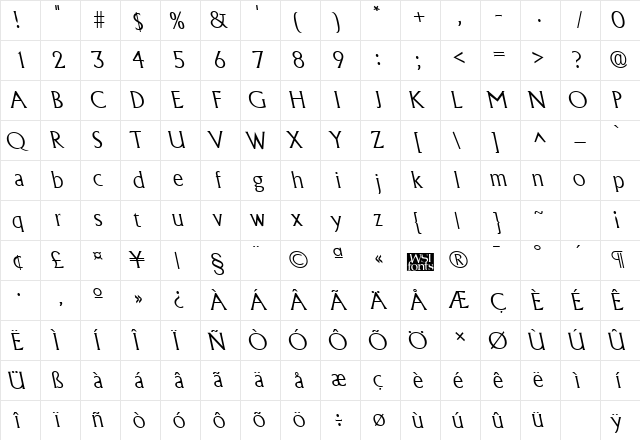
AlbertaBackslantExtralight Regular
Design Context for AlbertaBackslantExtralight Typeface
AlbertaBackslantExtralight offers clean, dependable letterforms without strong stylistic allegiance, making it a practical choice for designers who need flexibility. Its slender proportions lend an understated elegance to any composition.